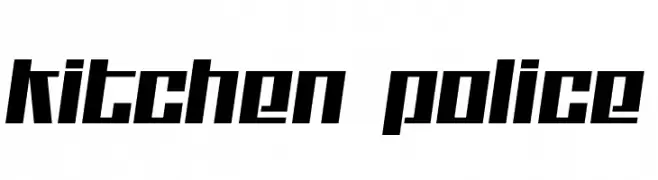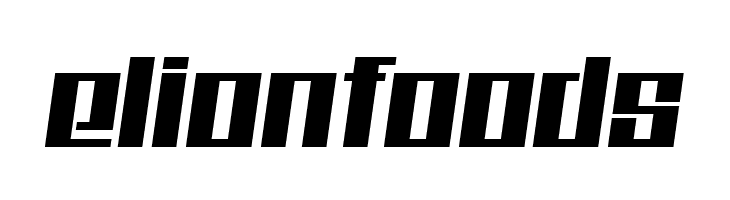
( Fonts by Divide By Zero! - fonts.tom7.com )
A decorative font with a mechanical, handcrafted appearance.
A bold, angular font with a geometric and modern style.